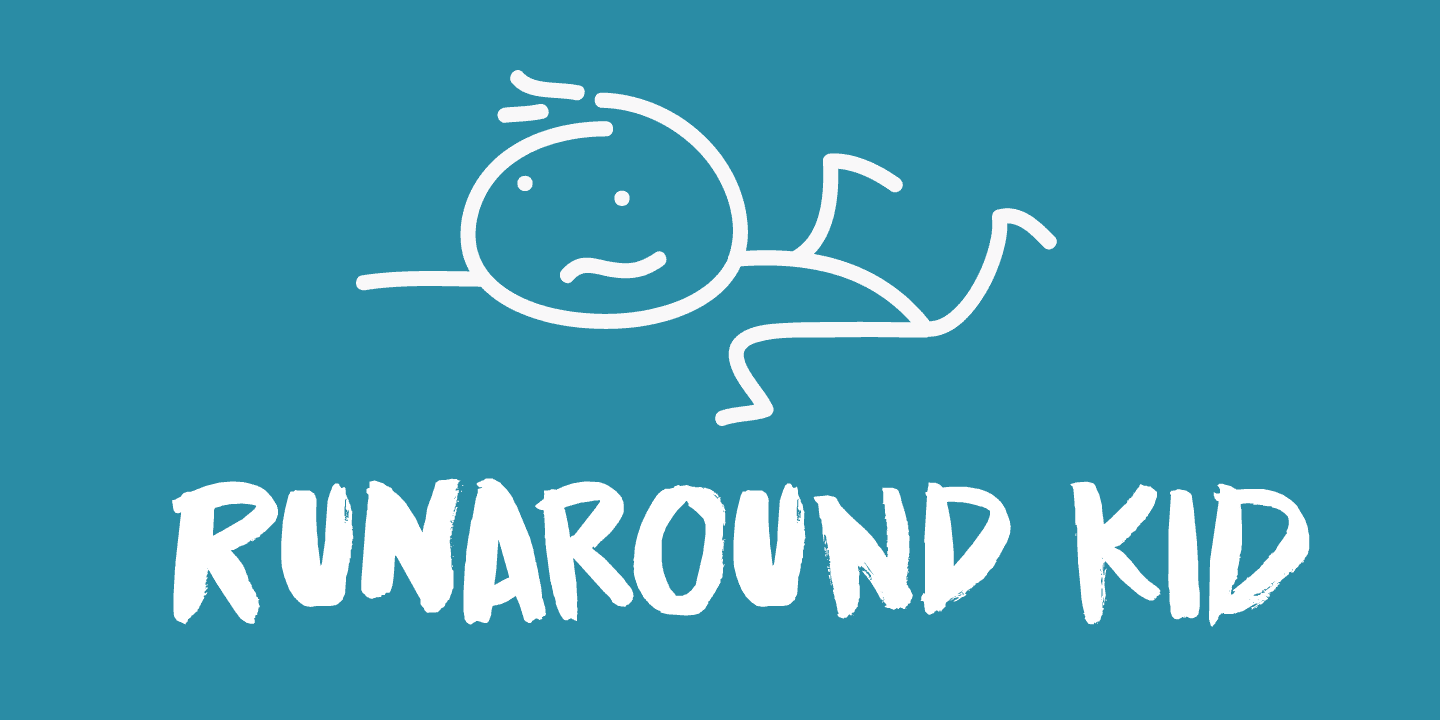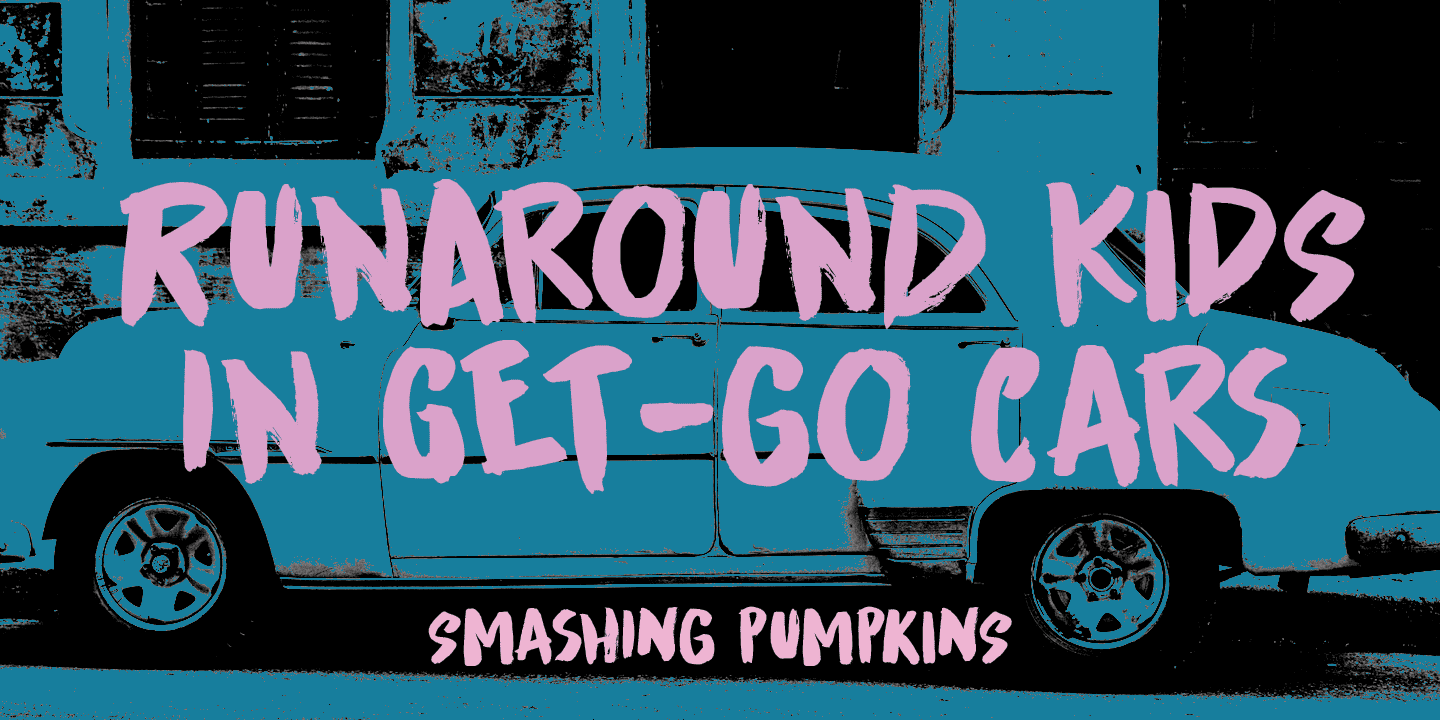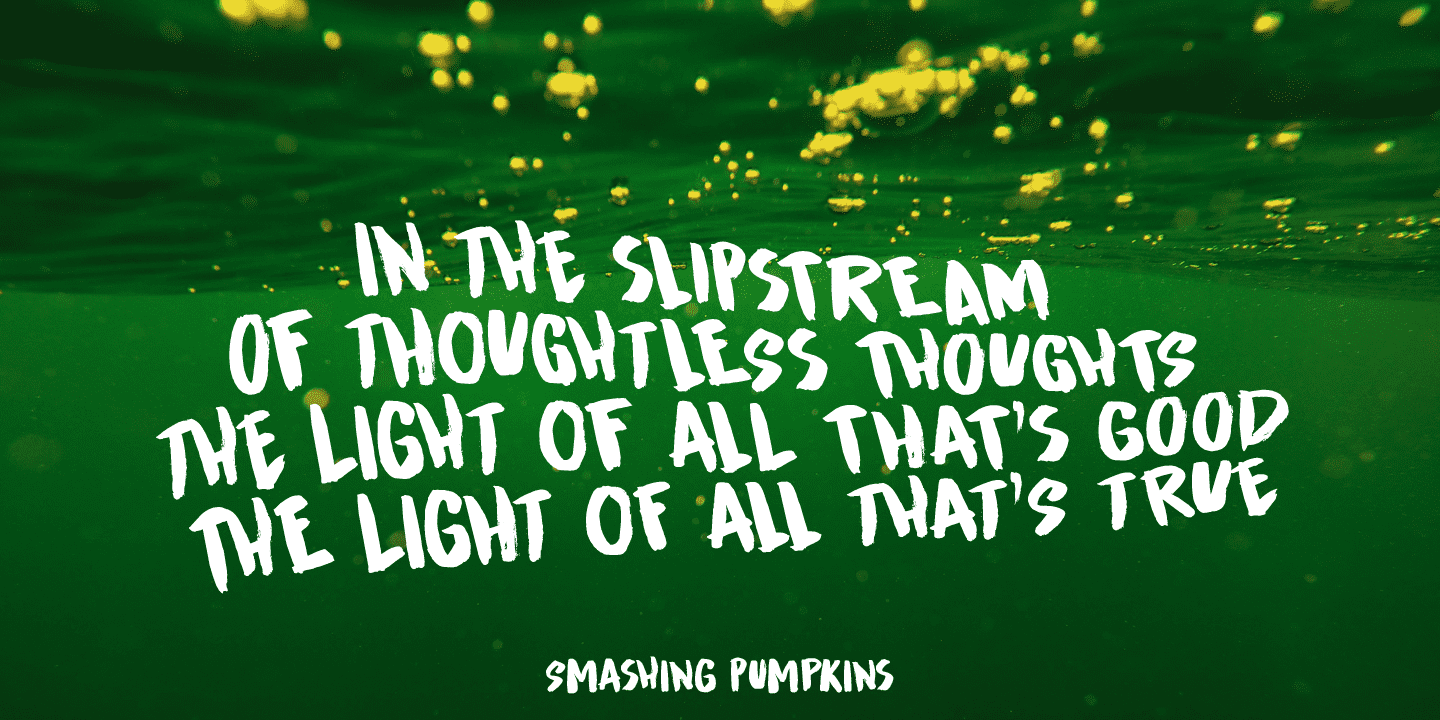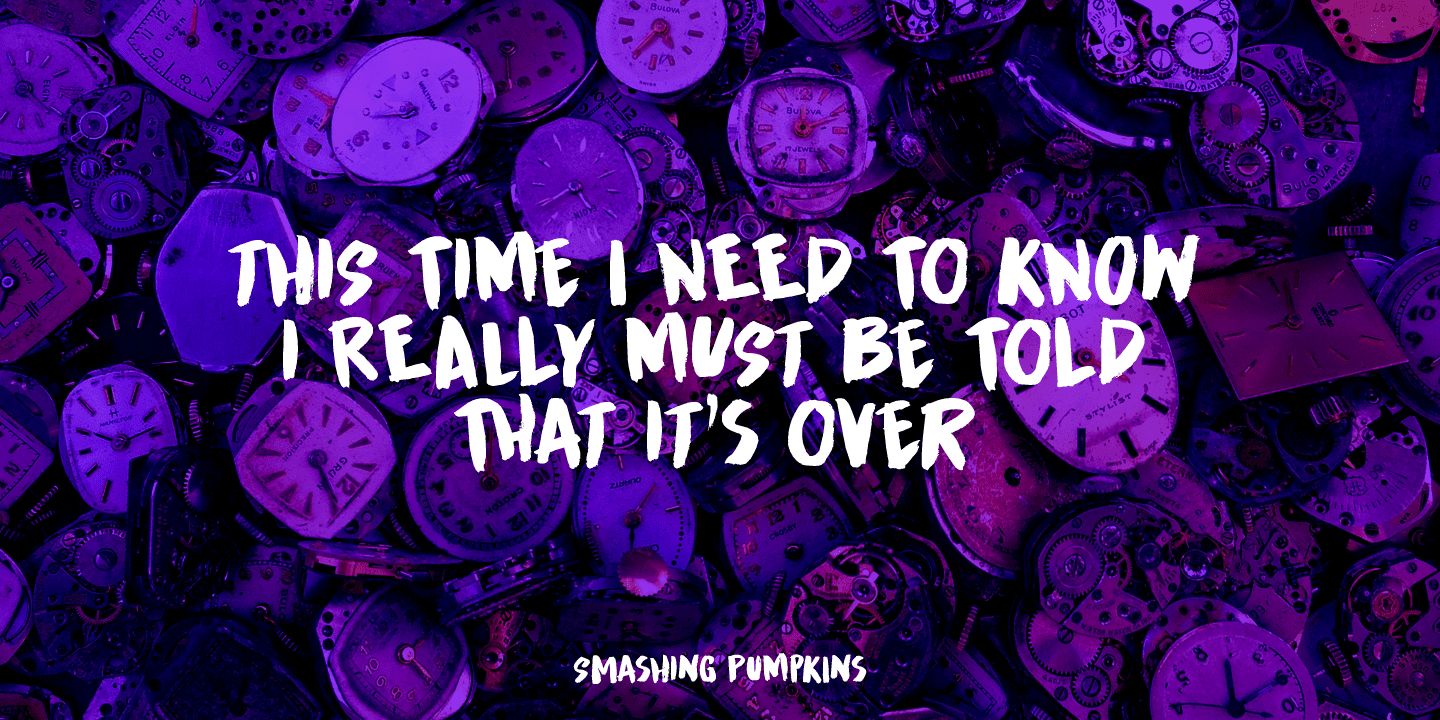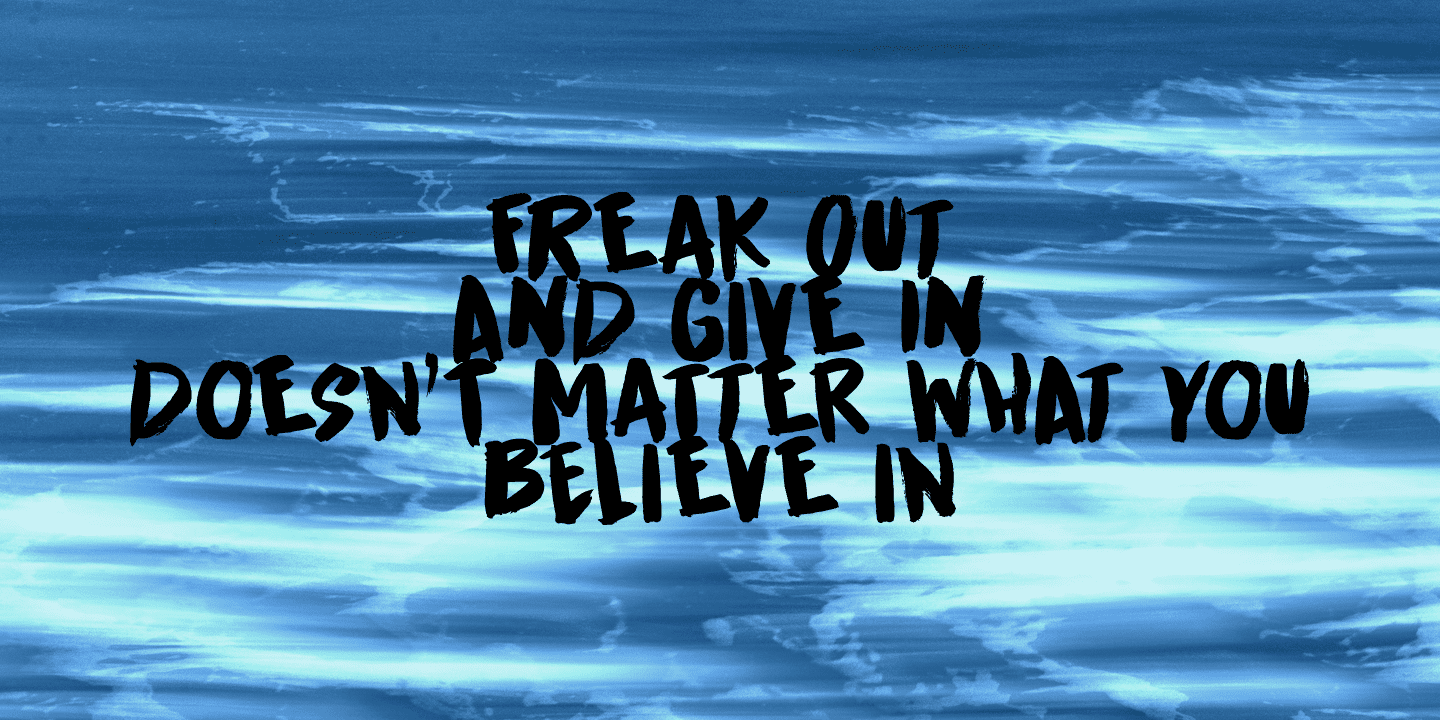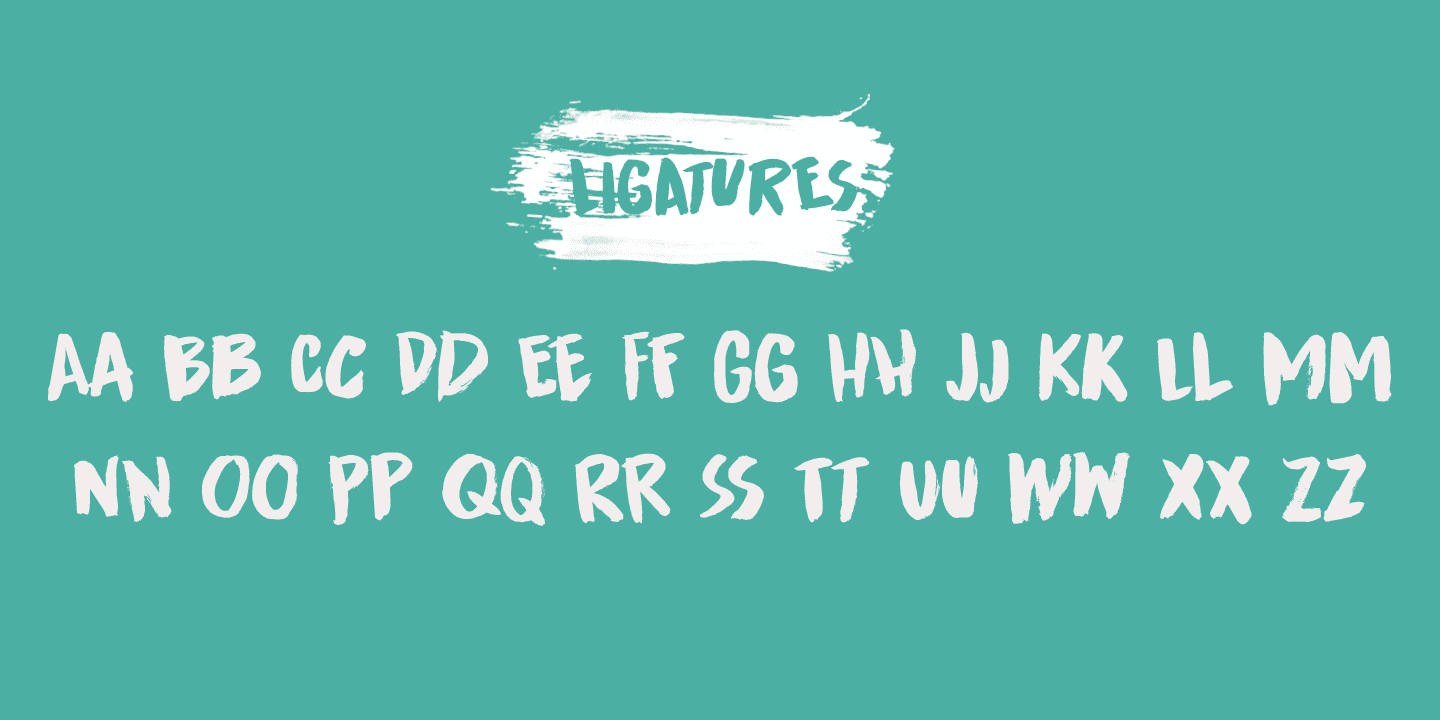
I was listening to some old Smashing Pumpkins albums when I created this font. The name comes from a song called *** You (An Ode To No One). Runaround Kid is a hand painted typeface. I used Chinese ink and a cheap Chinese brush to create the inky look. Comes with double-letter ligatures and a whole bunch of diacritics.